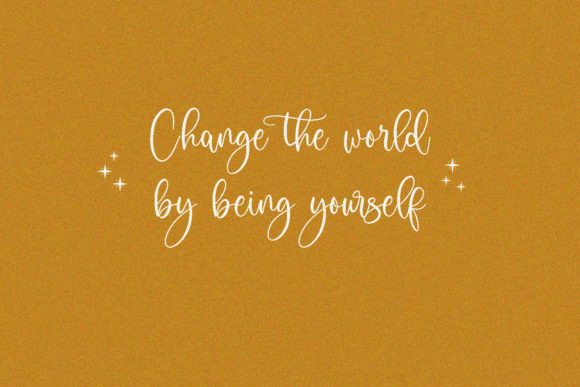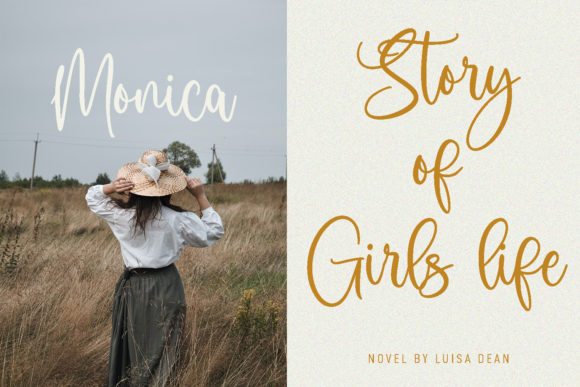
Sargonthe Font
db-ku.com - Script & Handwritten -- Sargonthe is a casual handwritten font. It is perfect for product packaging, branding project, magazine covers, social media, wedding, or just used to express words above the background.